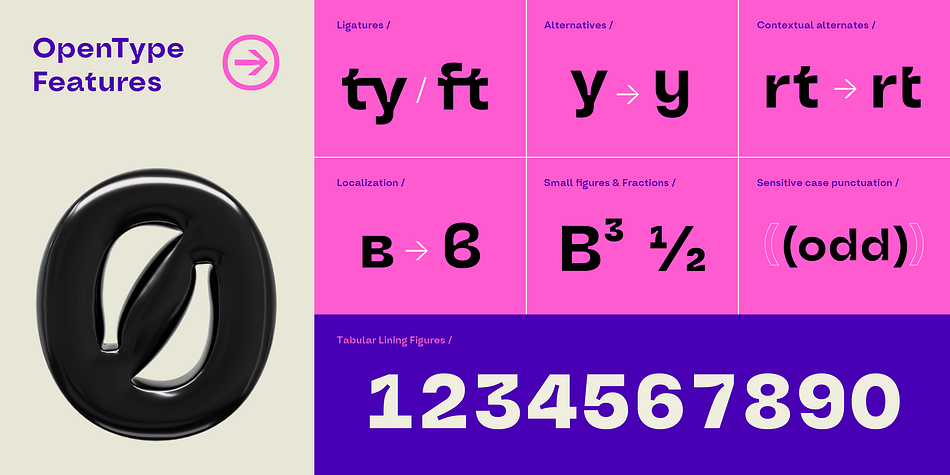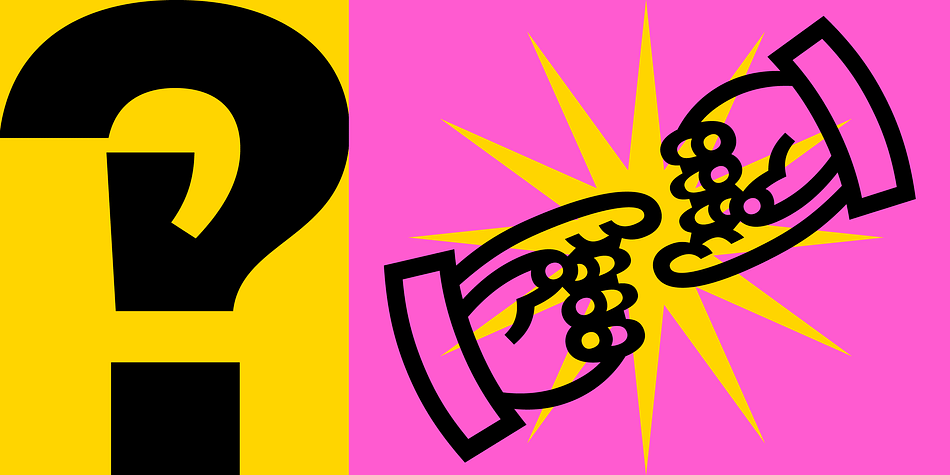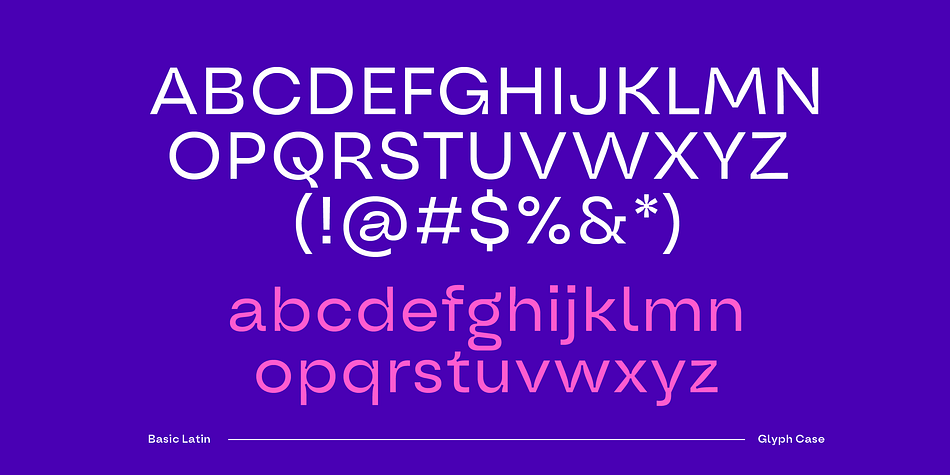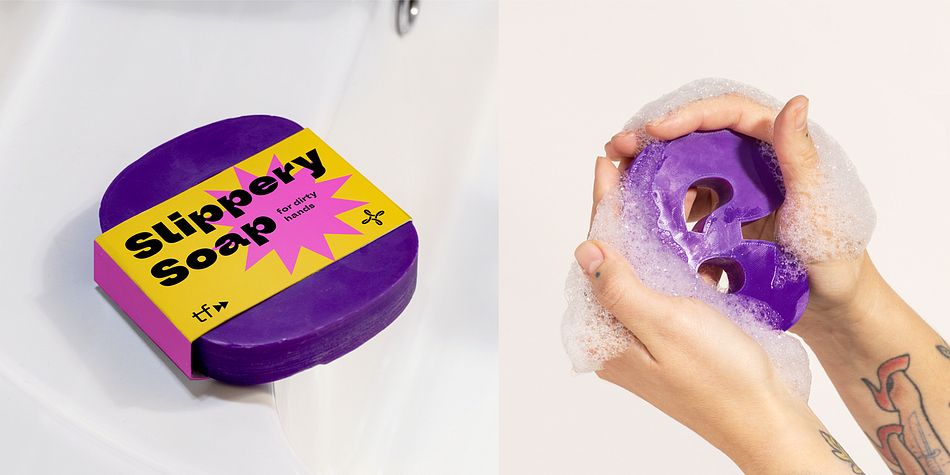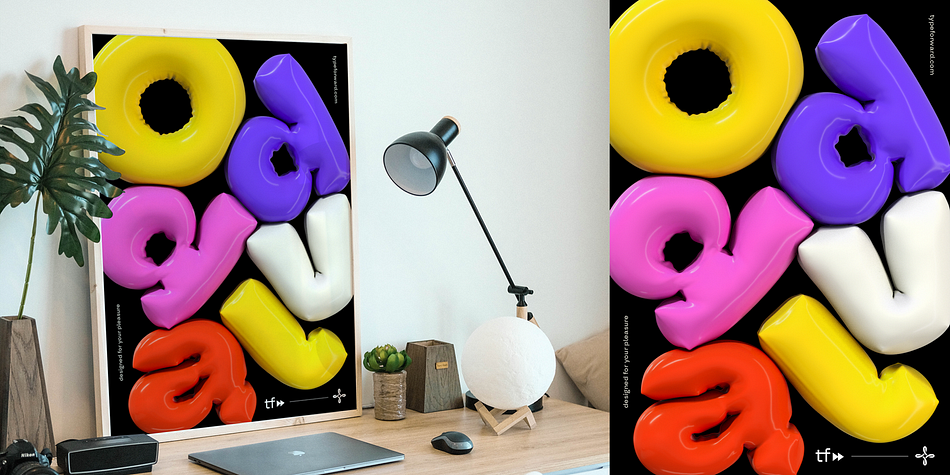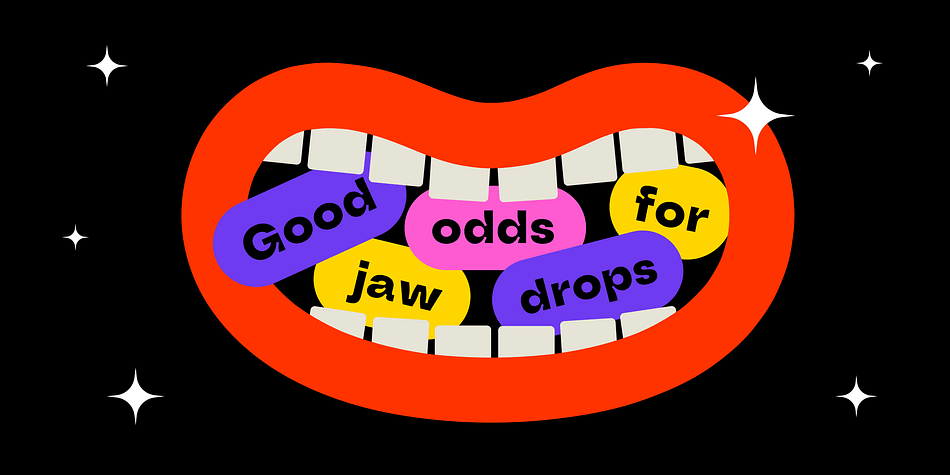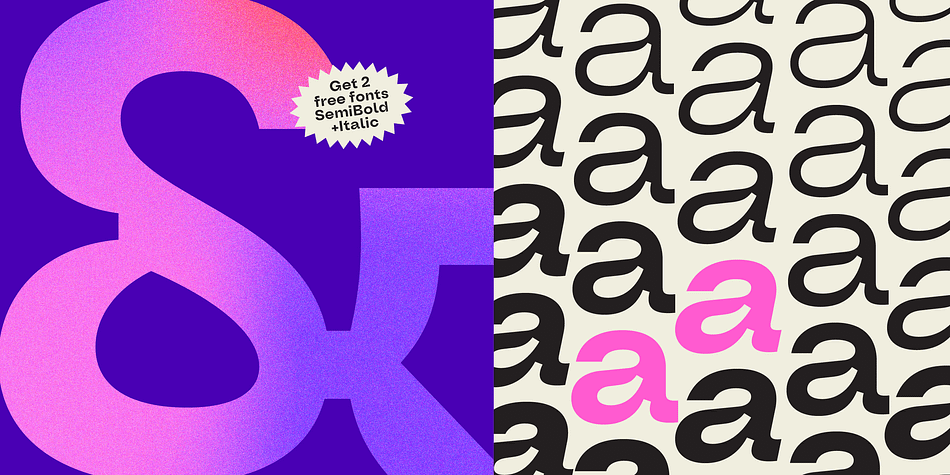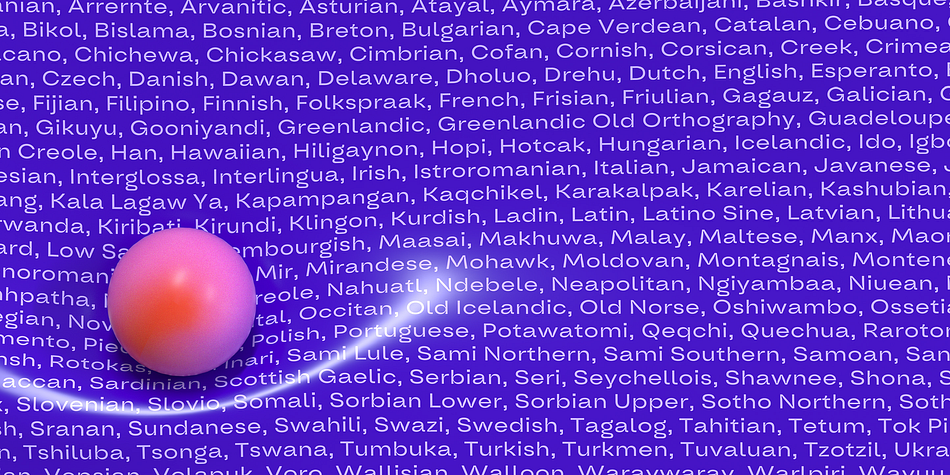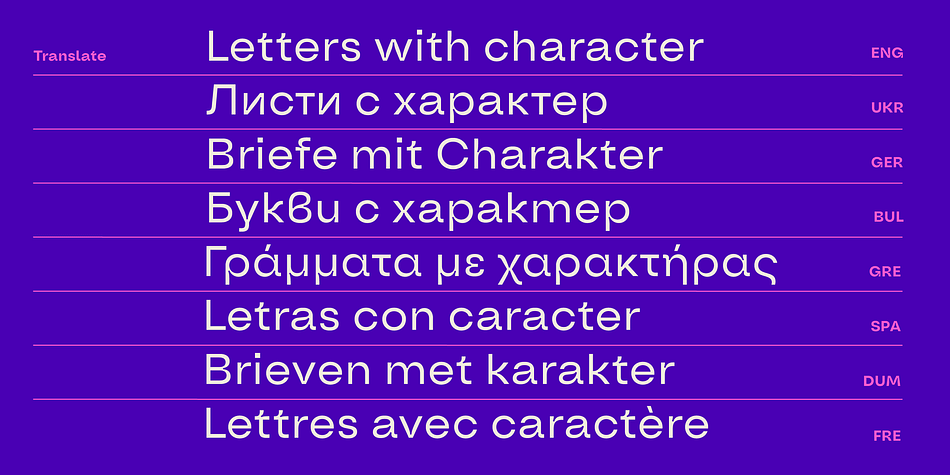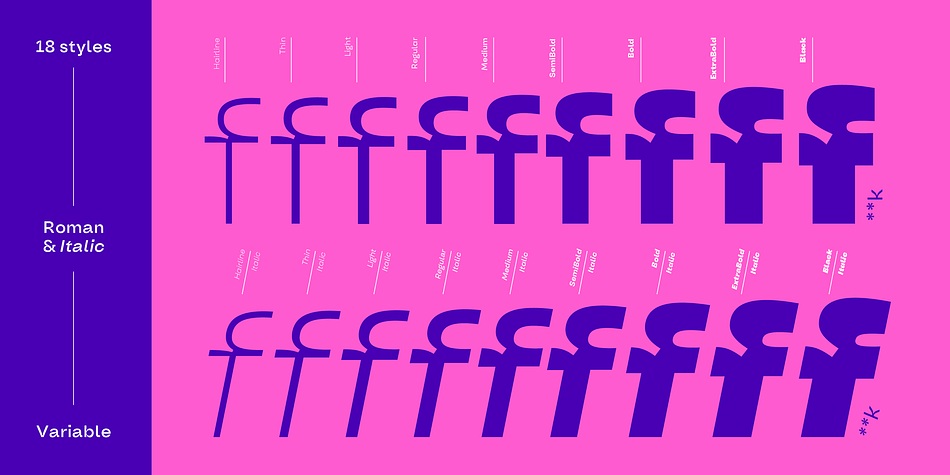
Oddval
Designed by Stan Partalev and Mirela Belova, Oddval is a display sans and sans serif font family. This typeface has nineteen styles and was published by Type Forward.
Oddval is a unique contemporary display geometric sans serif with prominent ink traps and a smooth, masculine tone.
Due to its modern and original style, it is well-suited for creative projects closely linked to innovation.
Oddval has a strong presence in the text due to its high x-height, minimal stroke contrast, and slightly wide oval shapes.
The Oddval type family includes 9 weights ranging from hairline to heavy, with corresponding Italics for a total of 18 fonts. These fonts are also available as a single variable font file, allowing you to create without limits.
The typeface is designed with extensive language support, including Extended Latin, Cyrillic, and Greek, covering over 220 languages. It also includes advanced typographic features, such as standard and discretionary ligatures, a stylistic set, contextual alternates, tabular and small figures, fractions, and language localizations.
Suitable for both print and on-screen media, Oddval is ideal for use in headlines and logotypes. It can also be set in short paragraphs to create a unique contemporary feel.